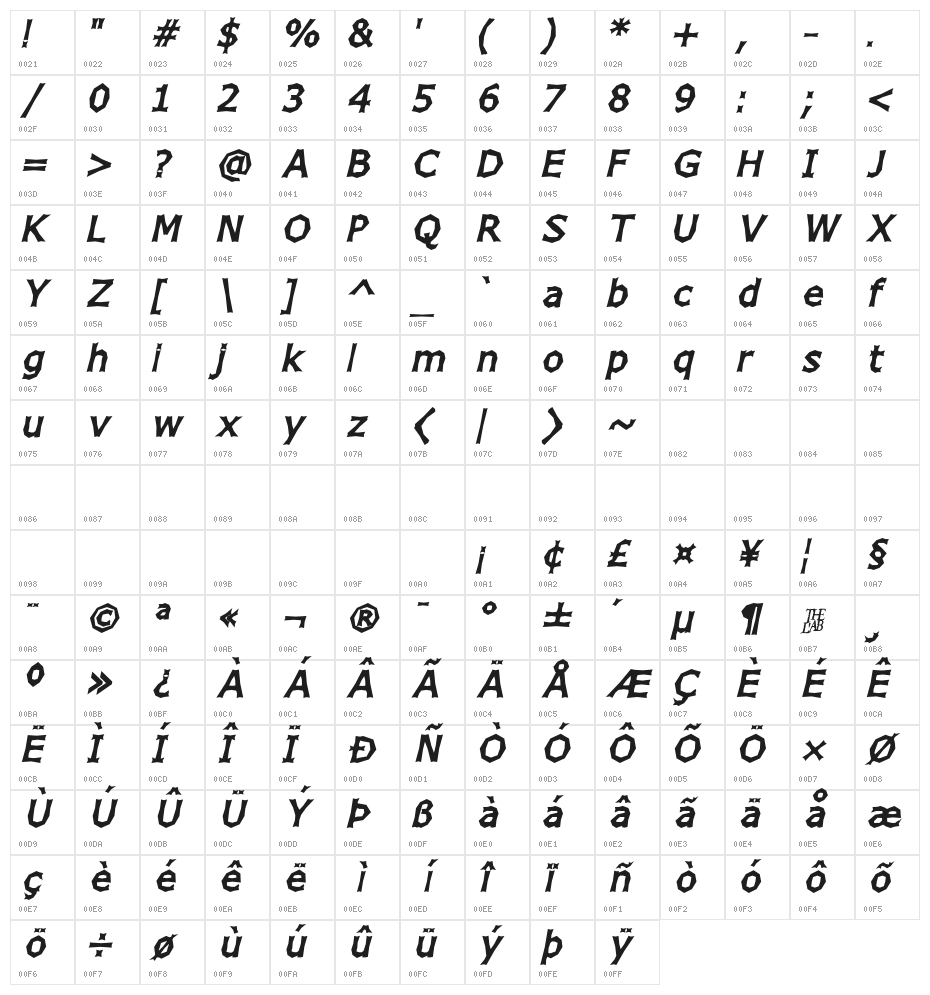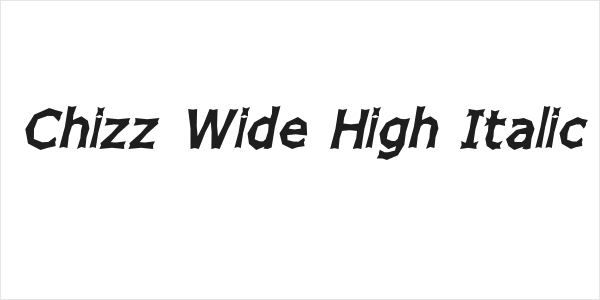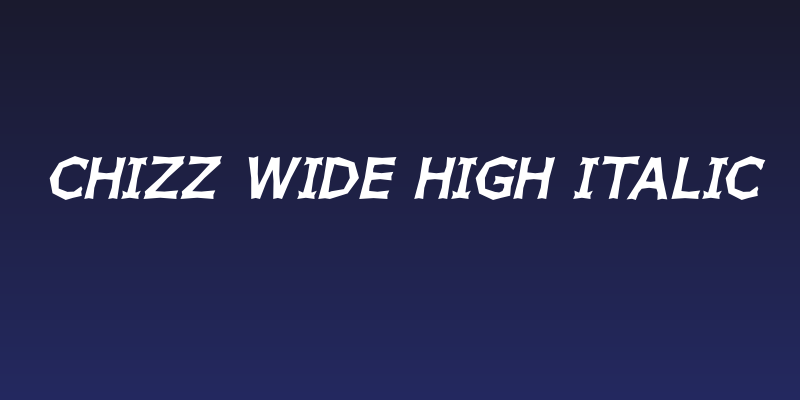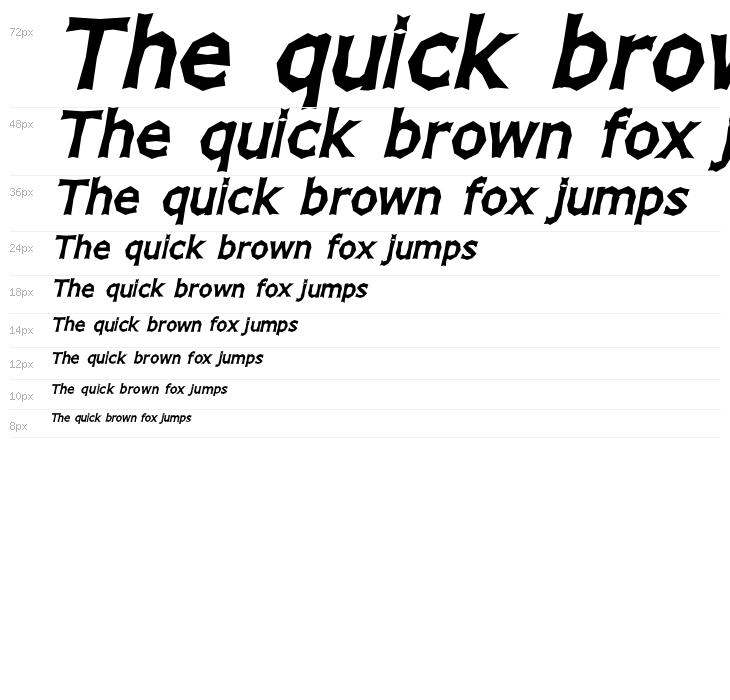
Chizz Wide High Italic Font
Chizz Wide High Italic Description
This font features a bold and dynamic style with a distinct italic slant, giving it a sense of movement and energy. The characters are wide and have a high contrast in stroke thickness, which adds to their bold appearance. The angular and sharp edges of the letters contribute to a modern and edgy aesthetic. The uppercase and lowercase letters maintain a consistent style, while the numerals and special characters are designed to match the overall look. This font is suitable for projects that require a strong visual impact.
Proposed ProjectsIdeal for headlines, posters, branding, and any design needing a bold statement.